Line Text
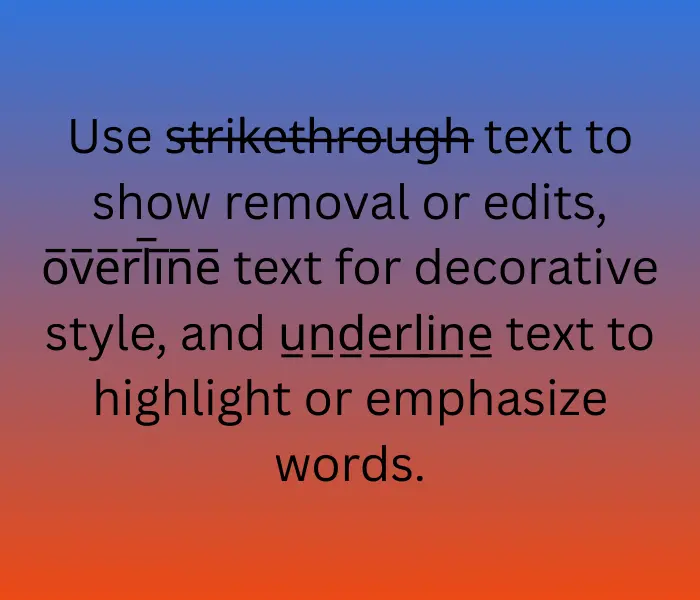
Understanding Line Text and Its Origins
Line text, often created through specialized Unicode characters, has roots in linguistic notation systems and phonetic transcription. Originally designed for academic purposes — like marking stress, length, or tone in phonology — these lines, such as macrons or tildes, gradually found creative repurposing in the digital age. Now, they’re used beyond linguistic circles, becoming tools for expression in digital typography and online personalization.
From Language to Aesthetics: The Shift in Purpose
Today, these once-technical diacritical marks are used for visual text decoration, allowing users to create stylized content that feels distinct and original. By placing lines above (e.g., macron, overline), across (e.g., strikethrough, stroke overlays), or below letters (e.g., low line, macron below), users can craft text with a modern, tech-savvy look. This shift from meaning to style reflects how digital culture reimagines old symbols for new purposes — transforming linguistic clarity into creative identity. These styles can now be easily used in everyday work, alongside other popular formats like bold, cursive, and fancy fonts.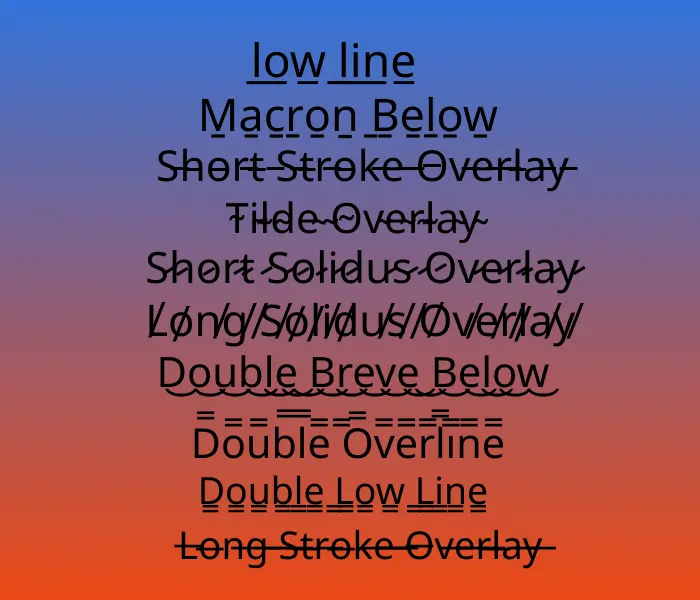